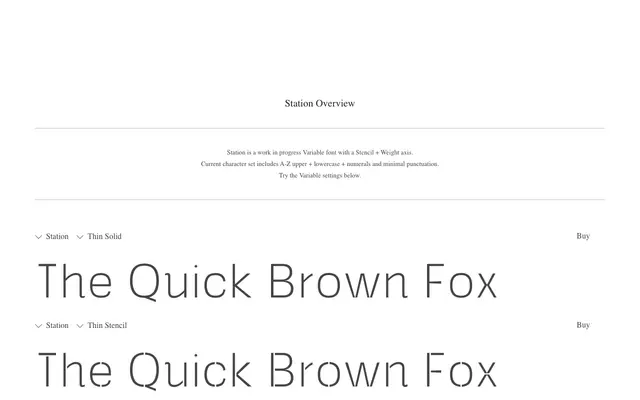
A variable stencil typeface from PS Type Lab with a continuous axis between solid and stencil cuts across seven weights.
Still in pre-release, Station operates as a variable font with two axes: Weight, spanning Thin to Extrabold, and a Stencil axis that moves between fully solid and fully stencilled letterforms. The current character set covers upper and lowercase Latin, numerals and minimal punctuation. The combination of continuous stencil control and broad weight range gives it range from delicate thin cuts to heavy display use.
Station is a stencil typeface with a variable axis controlling the stencil cut, spanning solid and stencil variants across multiple weights; the stencil mechanism and display-scale character set firmly place it in the display/stencil category.